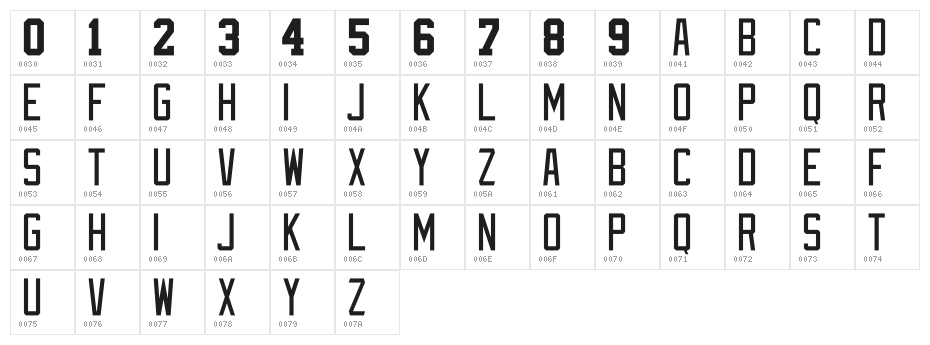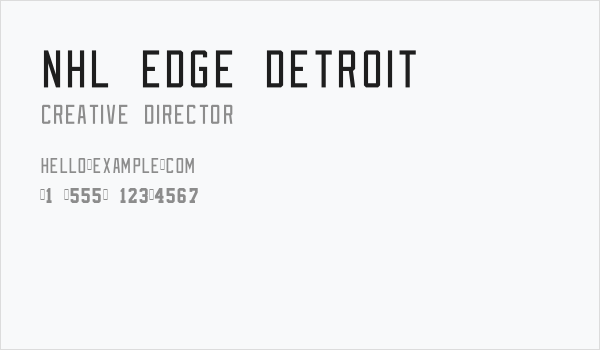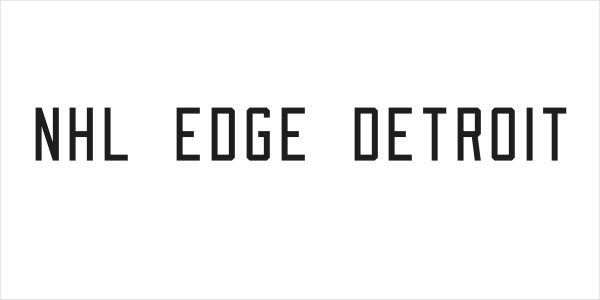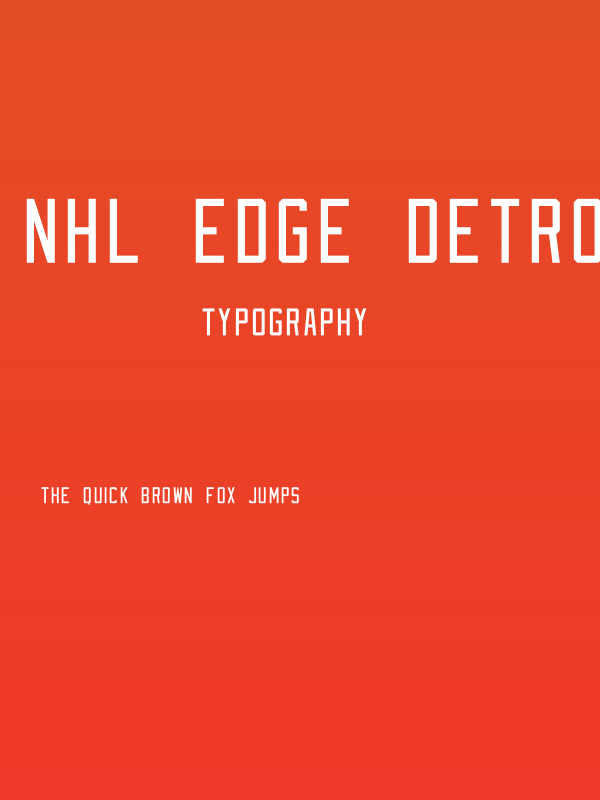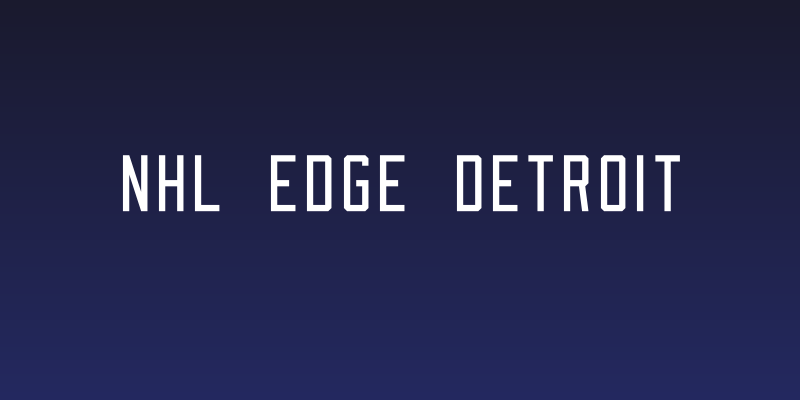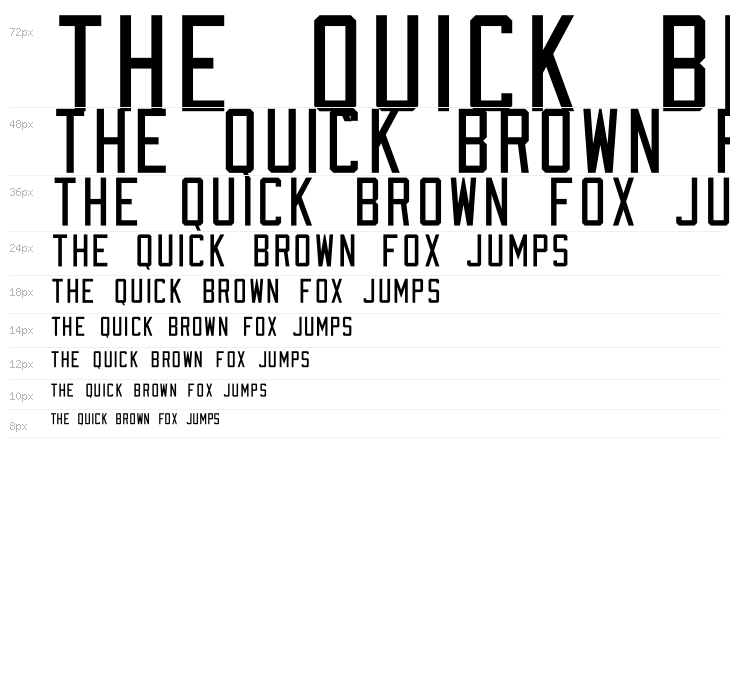
NHL Edge Detroit Font
NHL Edge Detroit Description
This font features a bold, geometric design with strong, angular lines and a modern aesthetic. The uppercase letters are uniform in height, creating a cohesive and structured appearance. The numbers are equally bold, with a slightly condensed form that maintains readability. The font lacks lowercase letters and special characters, emphasizing its use for impactful, straightforward communication. Its clean lines and sharp edges make it suitable for sports-related designs, branding, and any project requiring a strong visual presence.